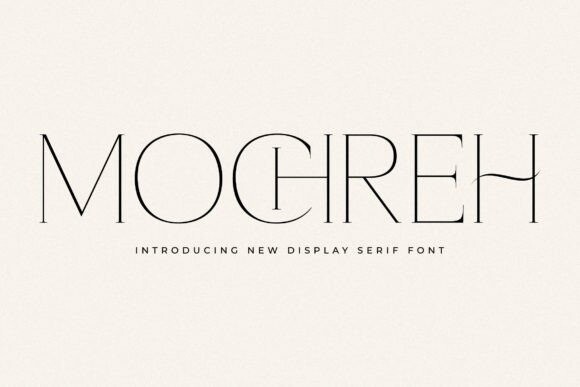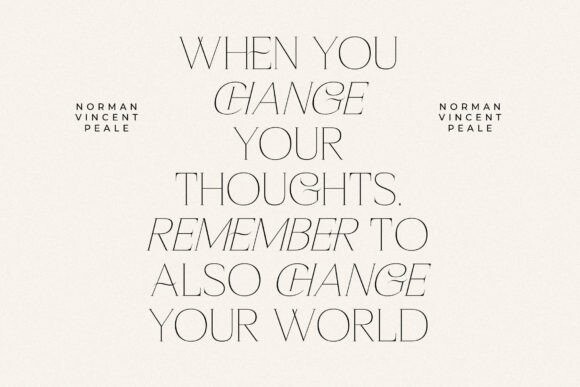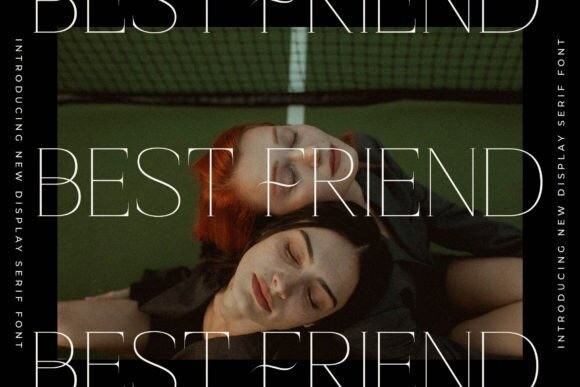
Mochreh Font
Mochreh Font is a serif modern and classic typeface that has its own unique style & modern look. This lovely typeface is perfect for an elegant & luxurious logo, book or movie title design, fashion brand, magazine, clothes, lettering, quotes, and so much more.